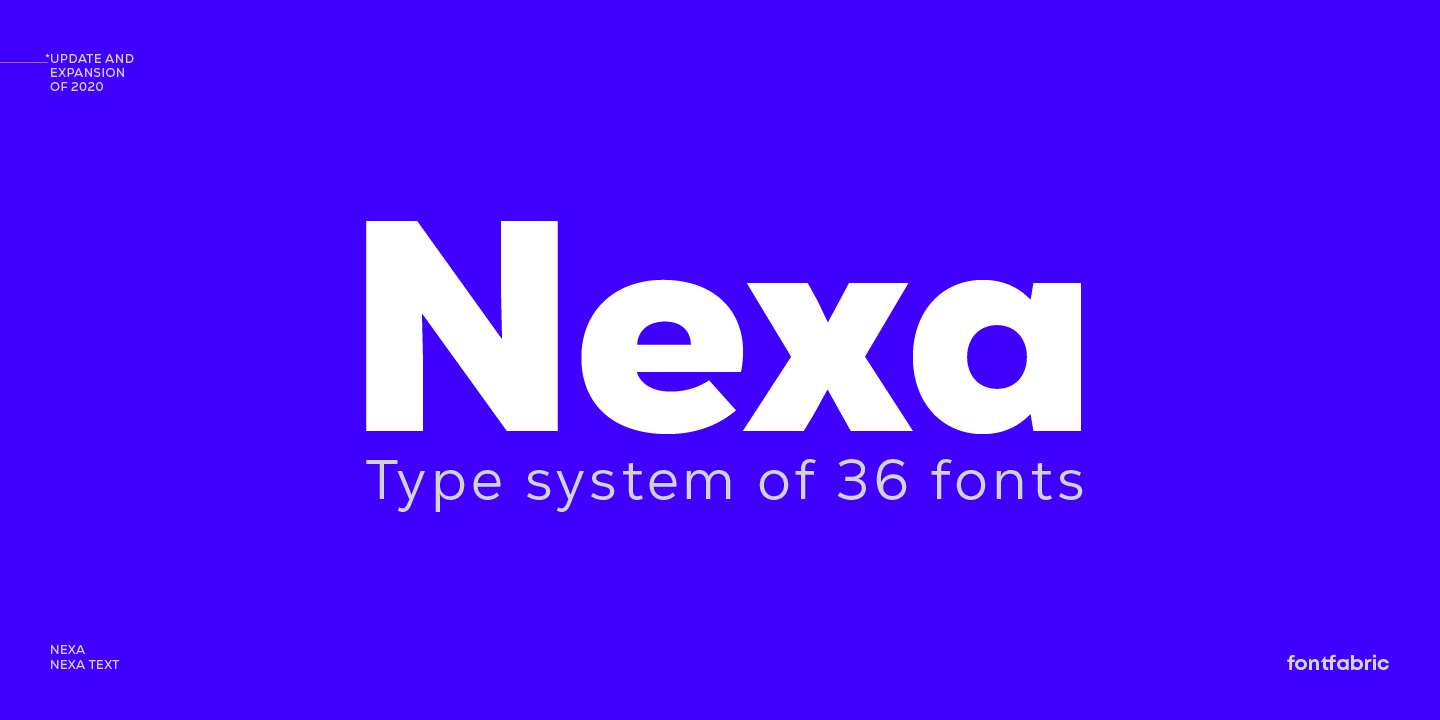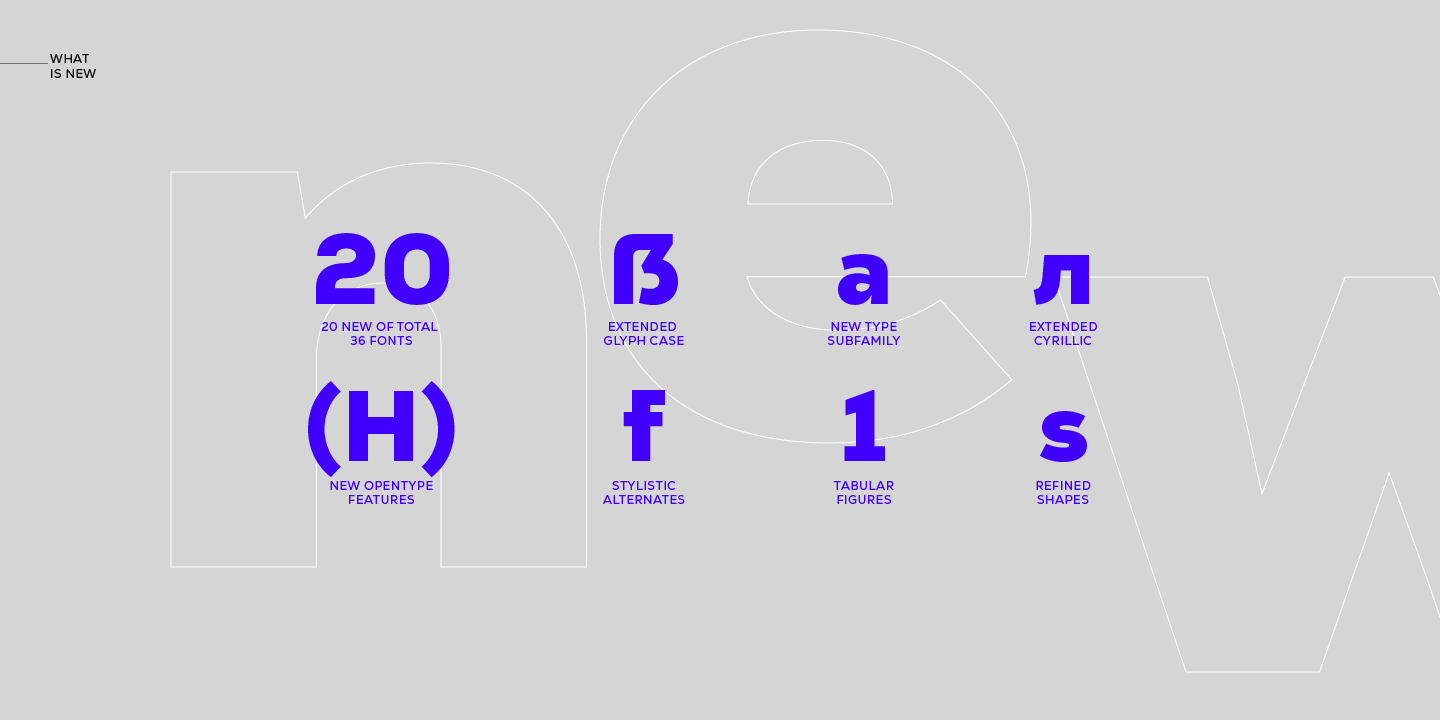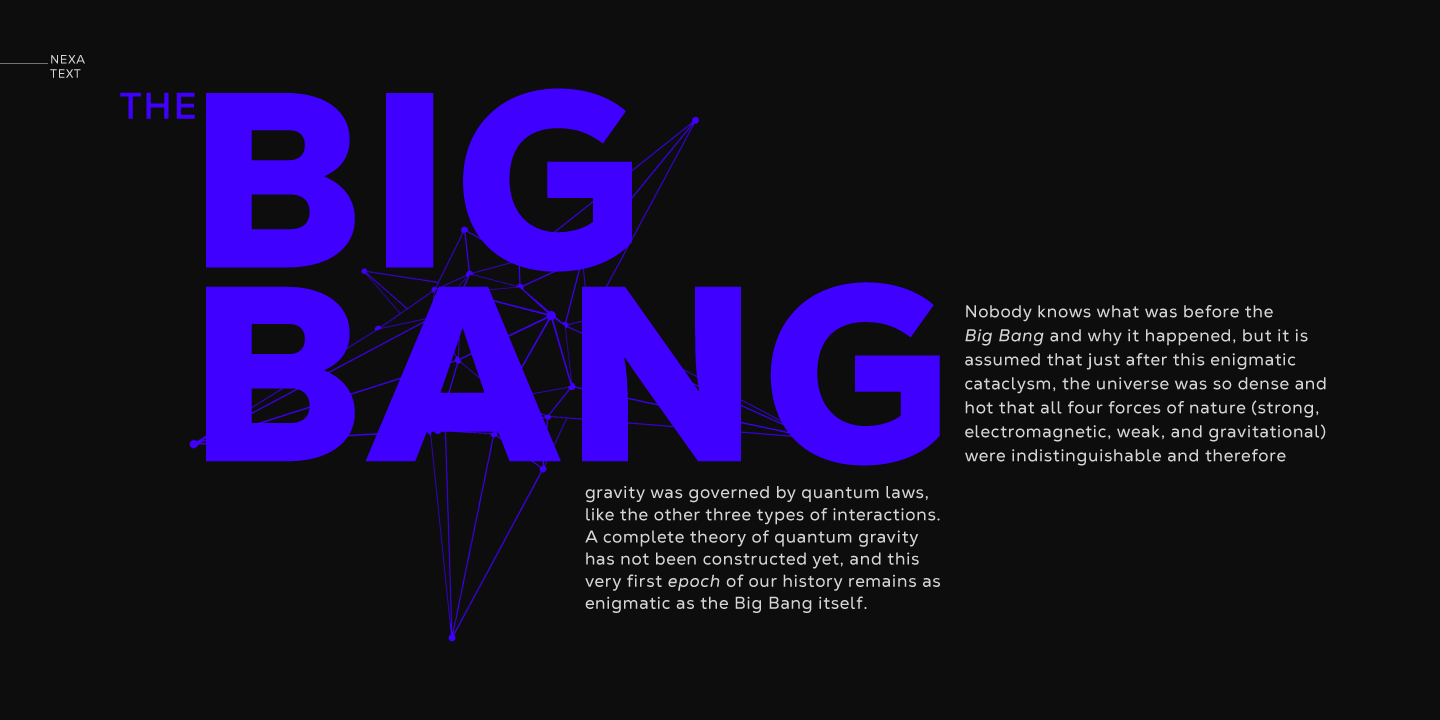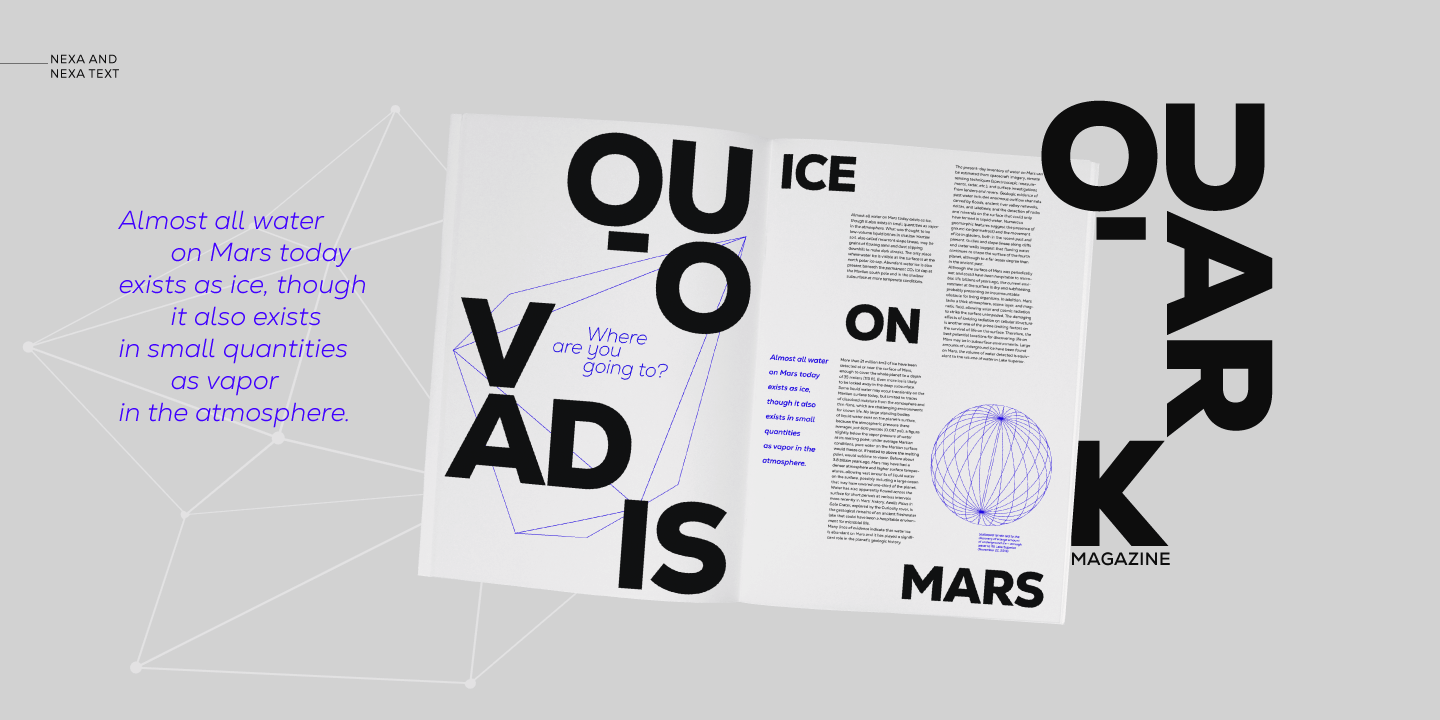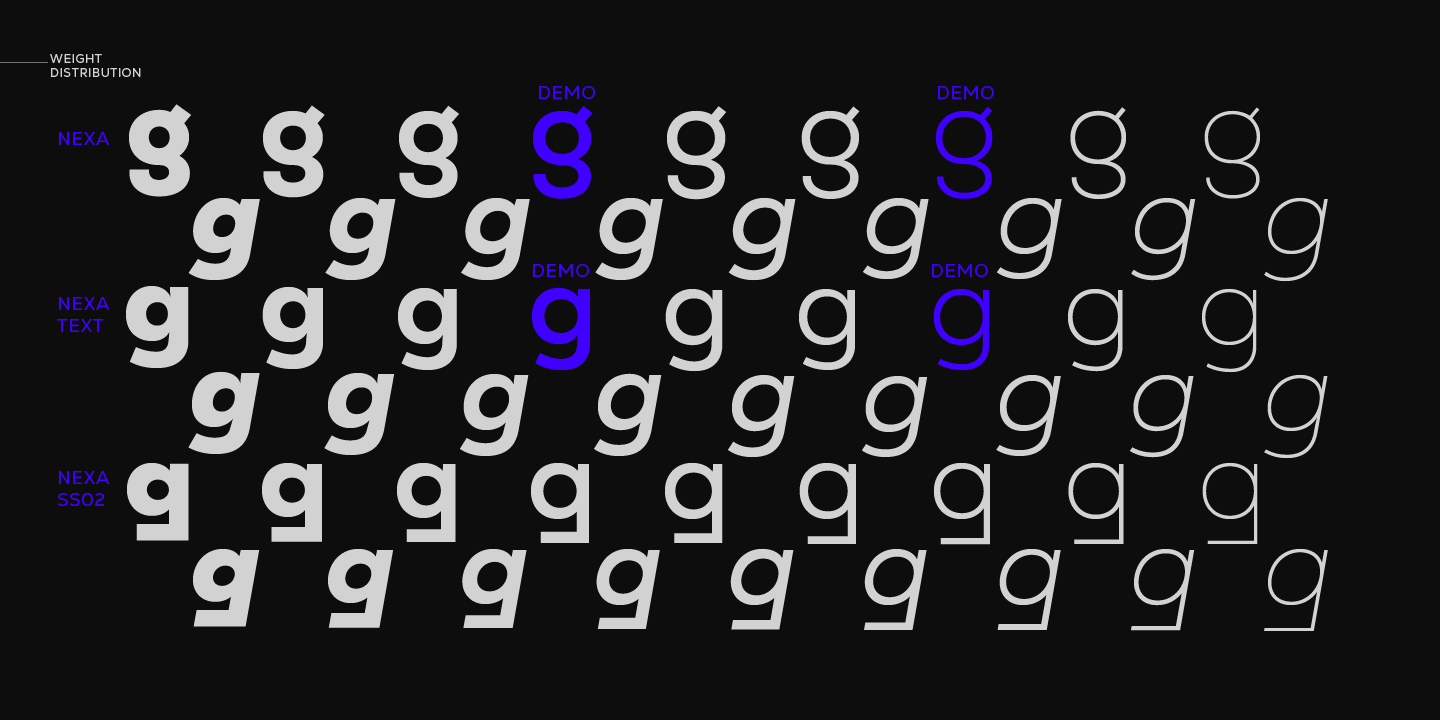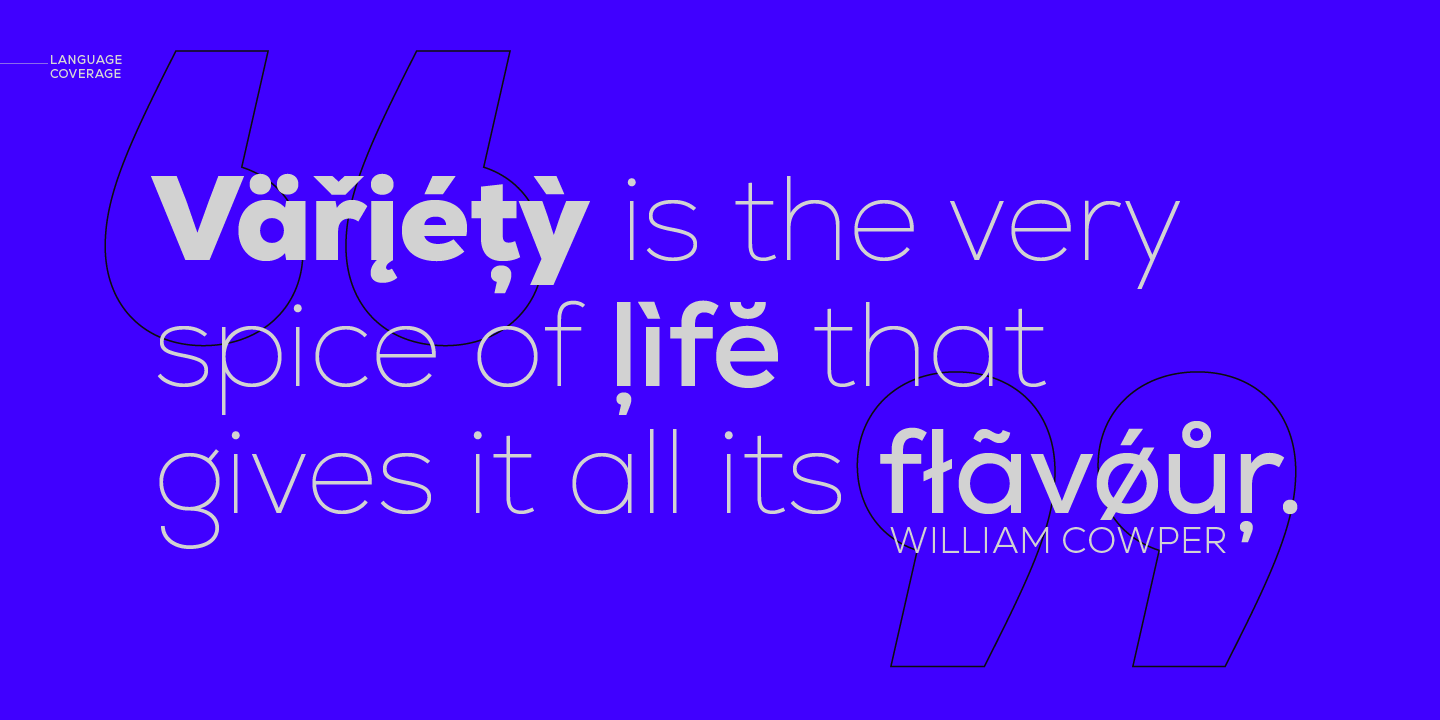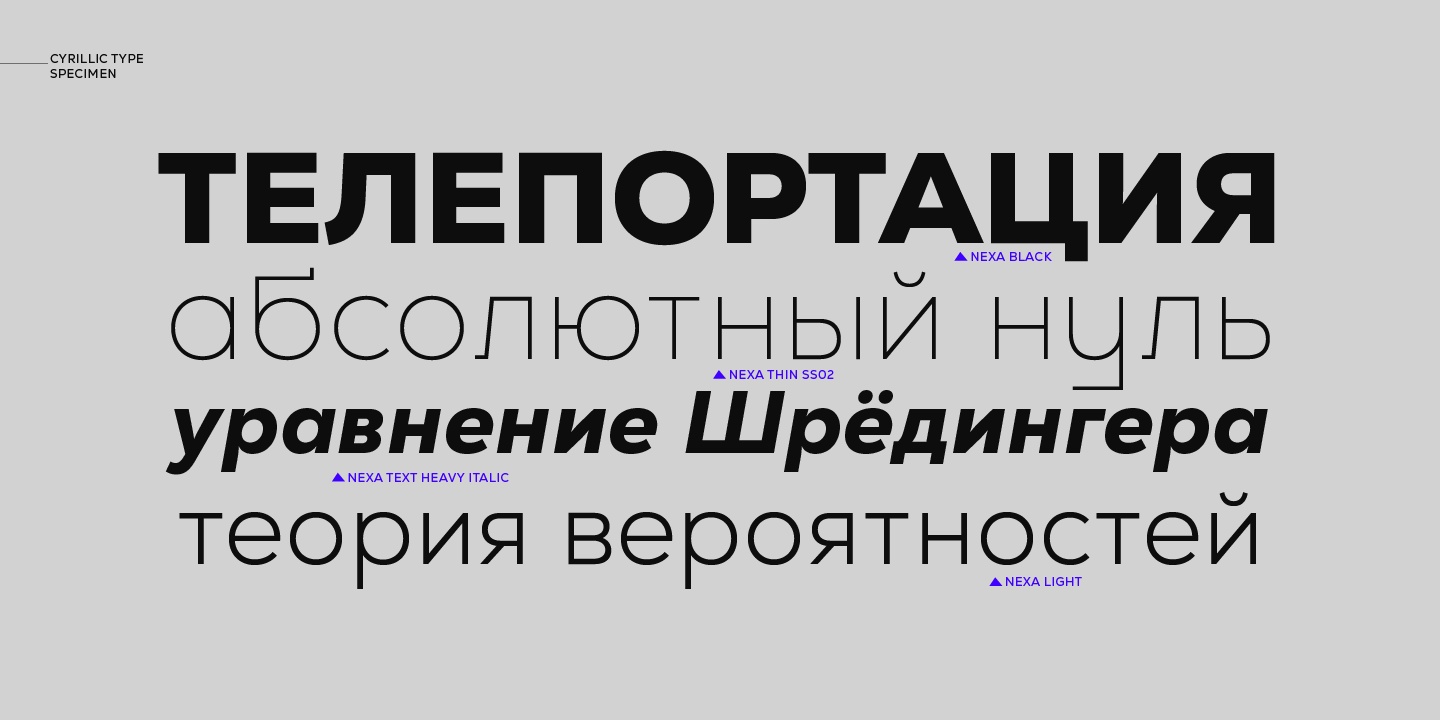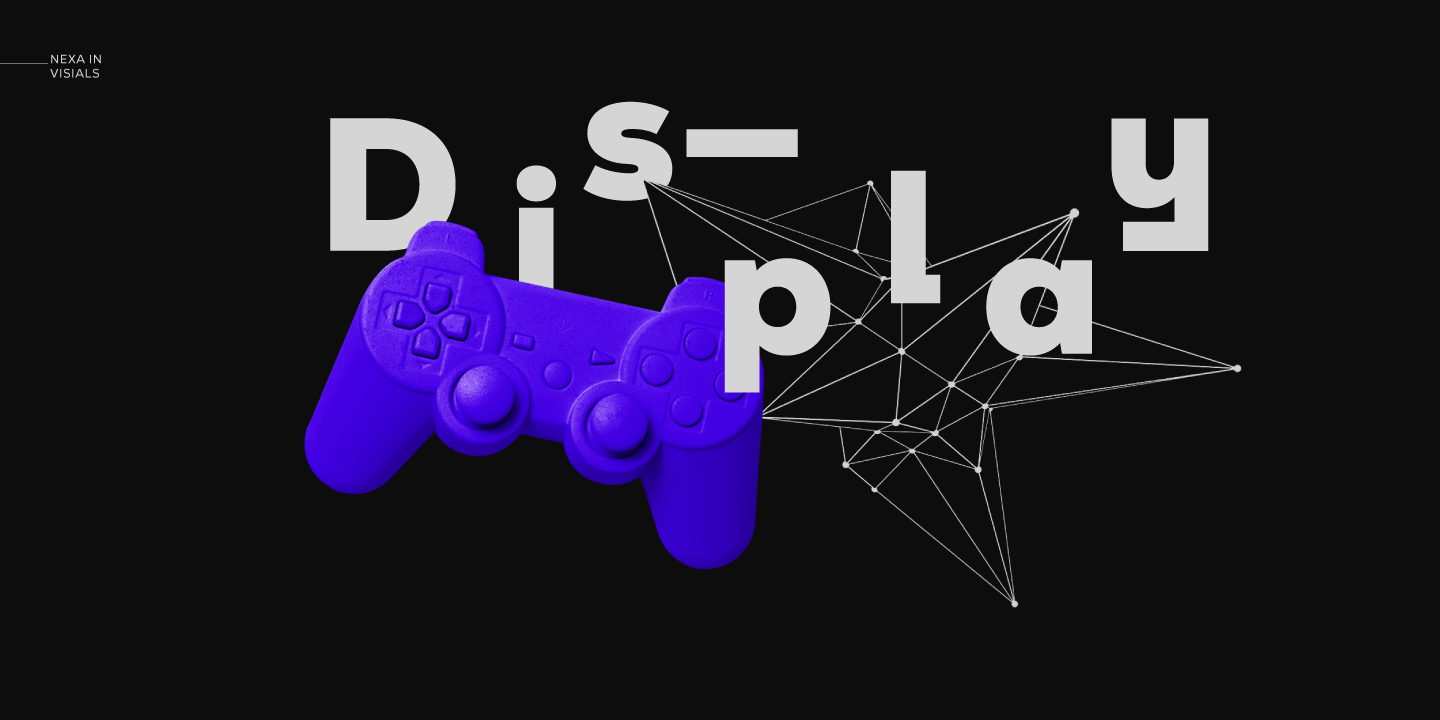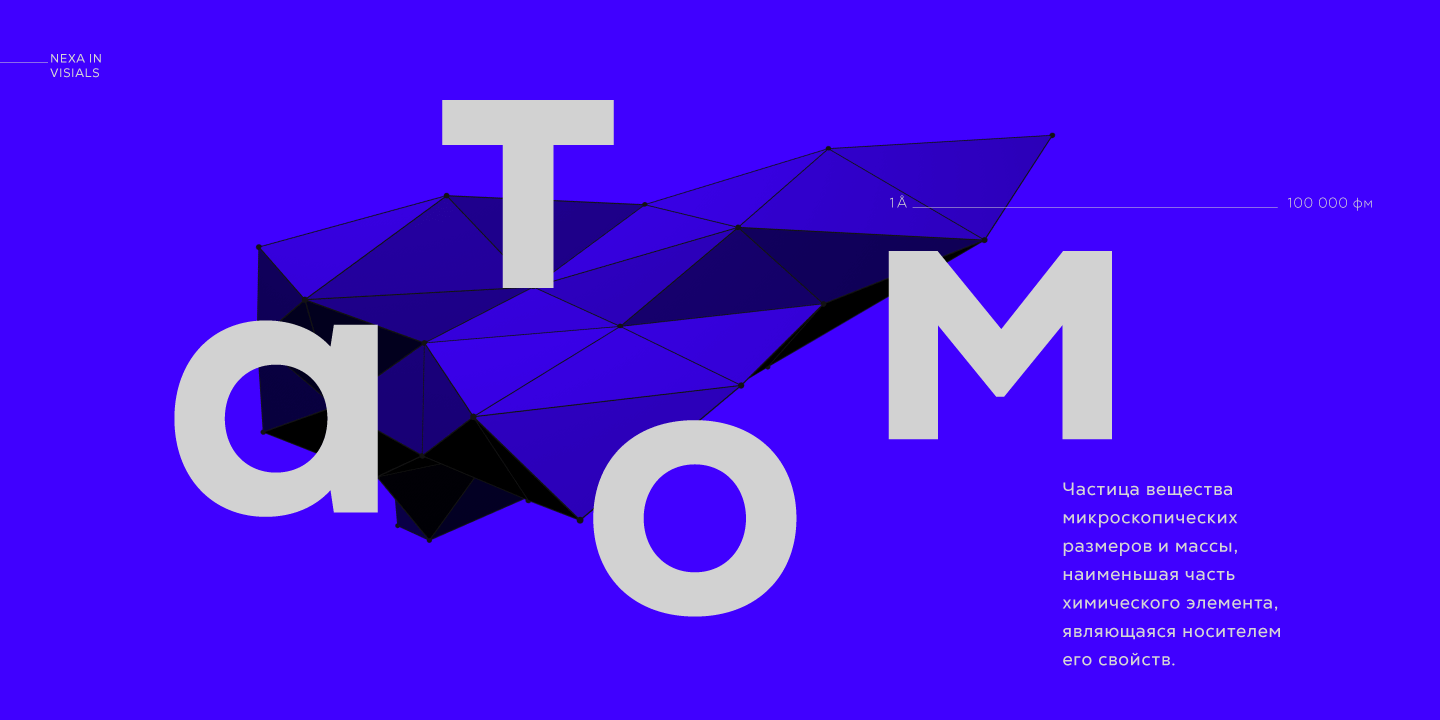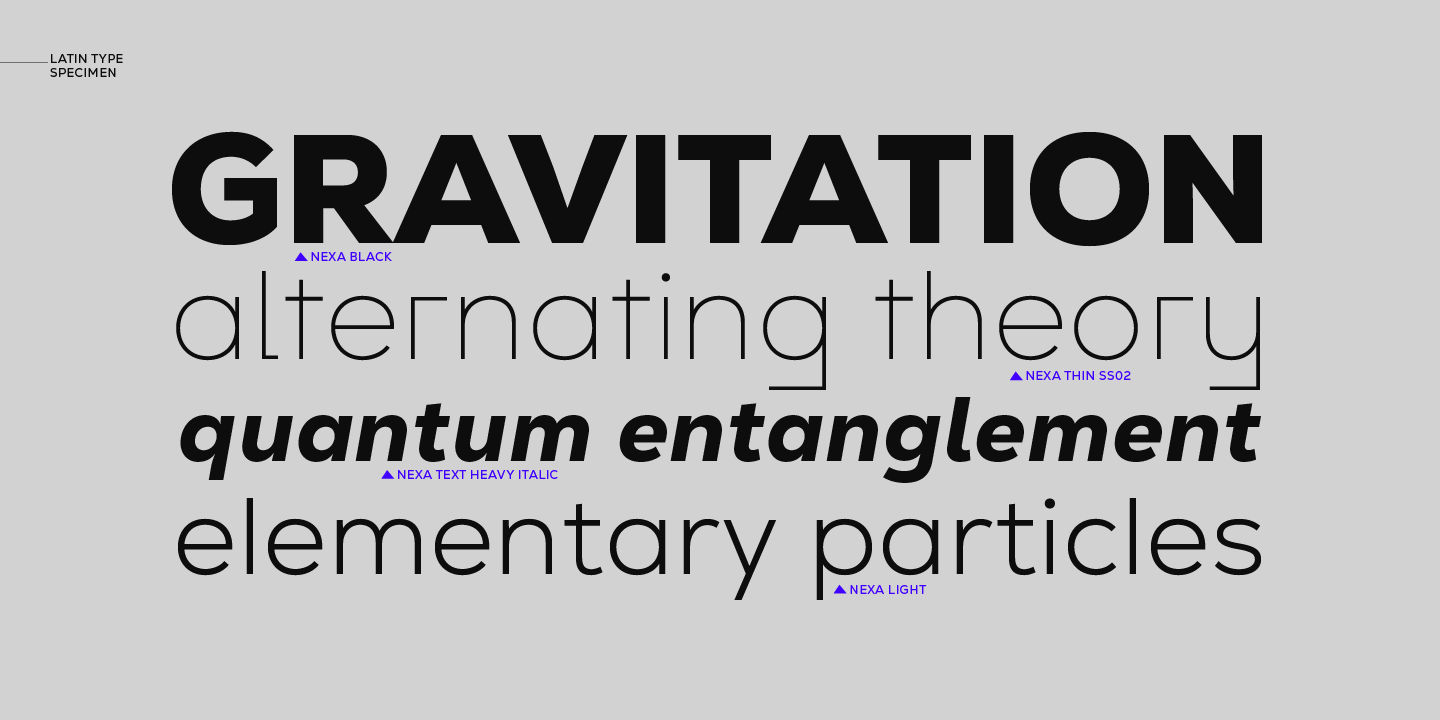
Nexa
Font Family by Fontfabric
The Nexa family includes 16 styles & weights - eight uprights with eight italics. It is characterized by excellent legibility in both - web & print design areas, well-finished geometric designs, optimized kerning etc.
Nexa is most suitable for headlines of all sizes, as well as for text blocks that come in both maximum and minimum variations. The font styles are applicable for any type of graphic design in web, print, motion graphics etc and perfect for t-shirts and other items like posters, logos.